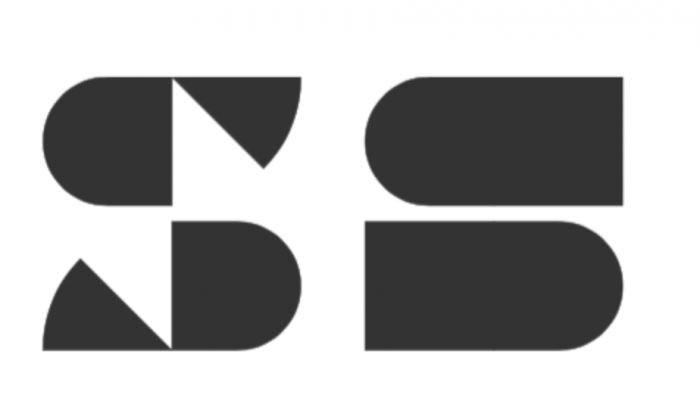
Nice. Also, there is not much point in having the same lowercase letters on the uppercase, so you might wanna use it for your advantage by adding alternate versions. For example, an s that will be more in sync with z. Some suggestions just for consideration:
cool! kinda reminds me of blackletter. btw nice use of pizza slice
Cool. Can't quite recognize the "s" though.
@architaraz Though I changed "s", how about?
Nice. Also, there is not much point in having the same lowercase letters on the uppercase, so you might wanna use it for your advantage by adding alternate versions. For example, an s that will be more in sync with z. Some suggestions just for consideration:
the y is like the g